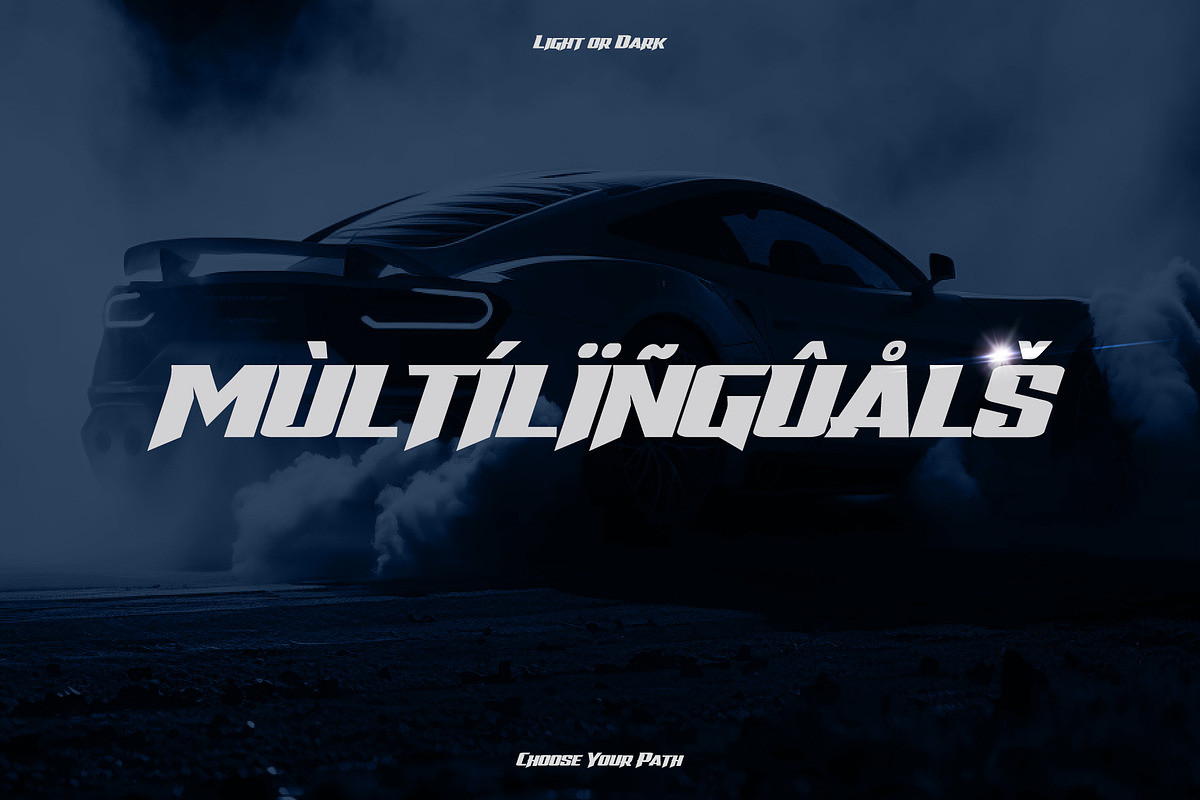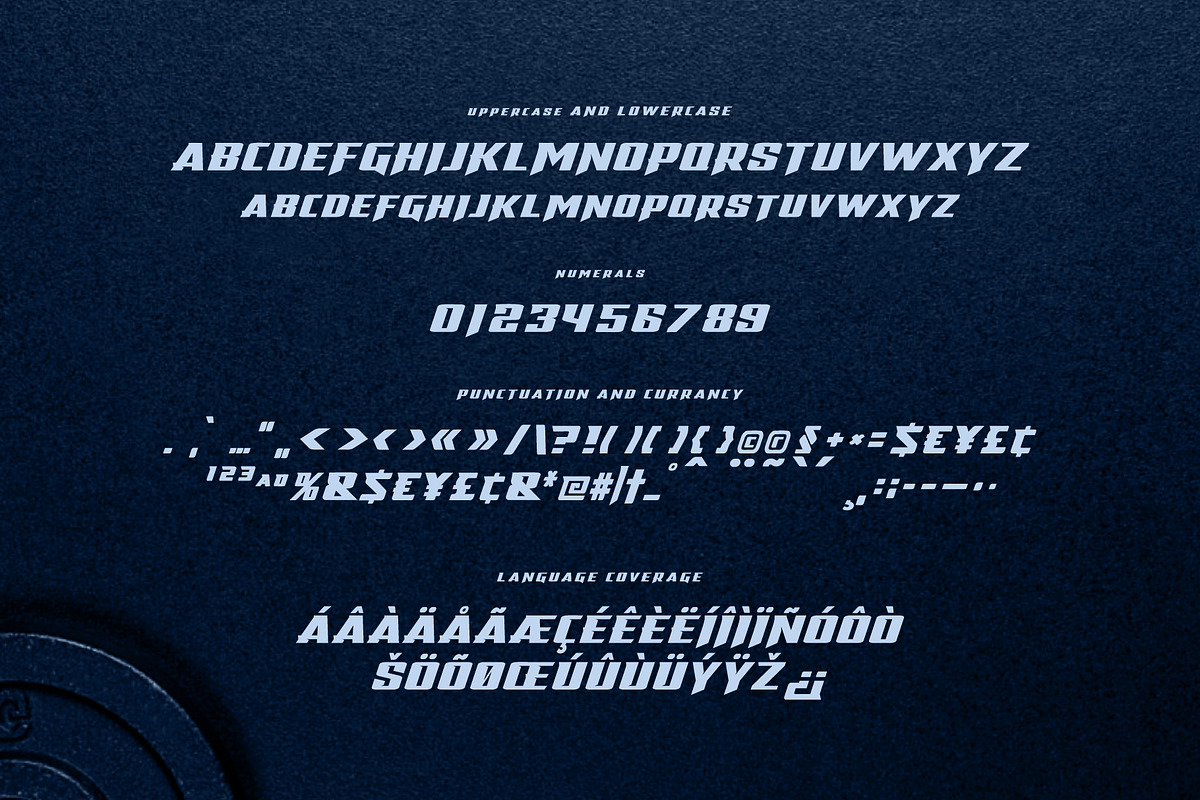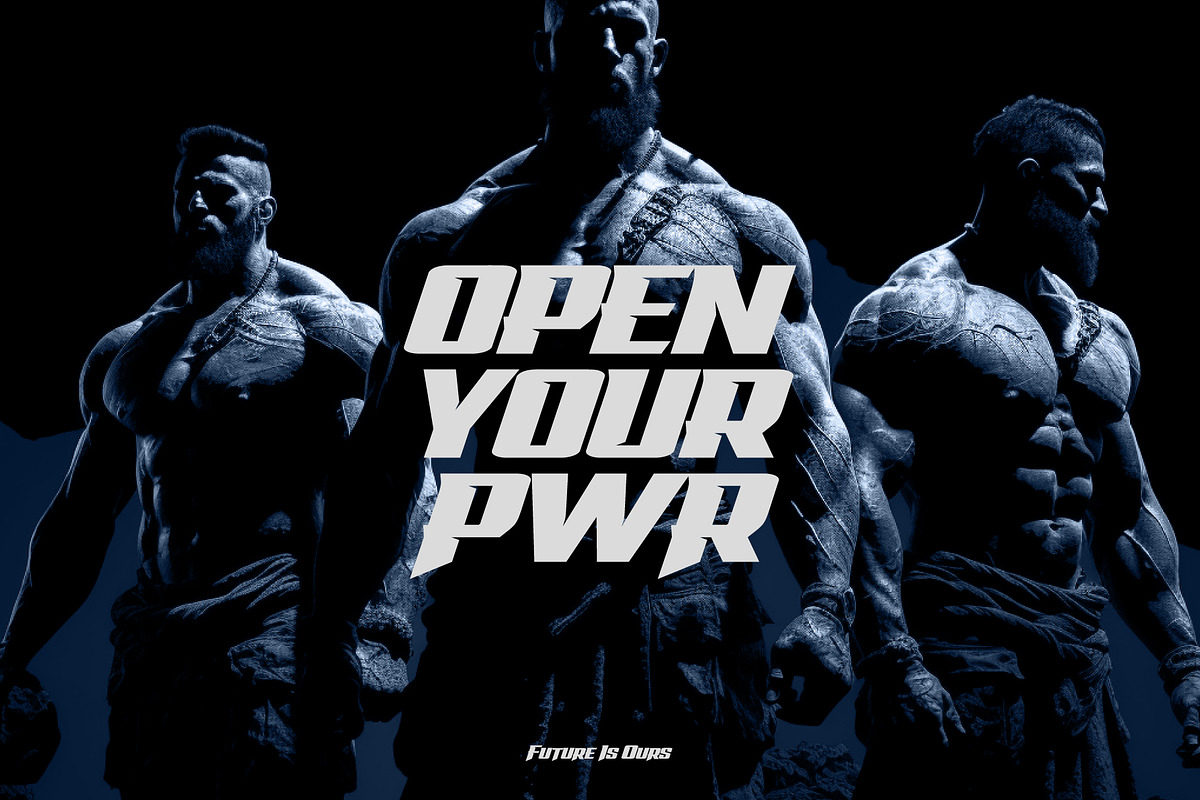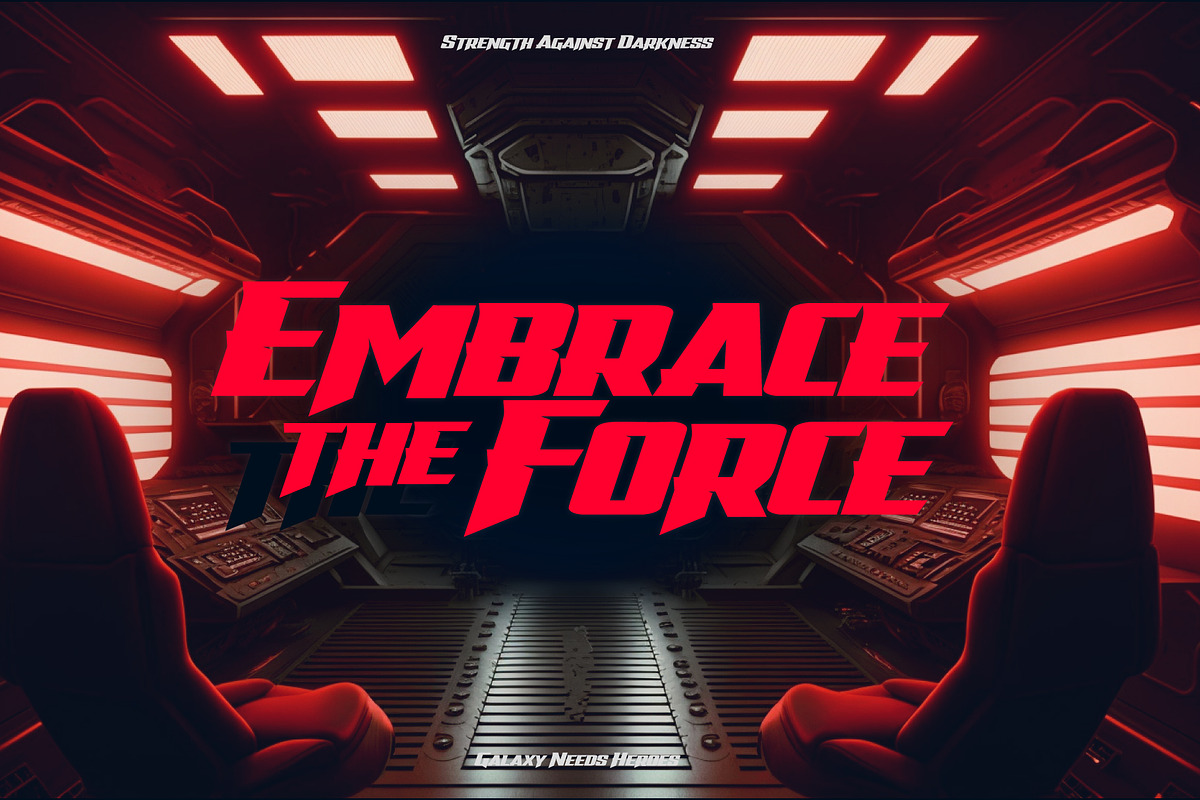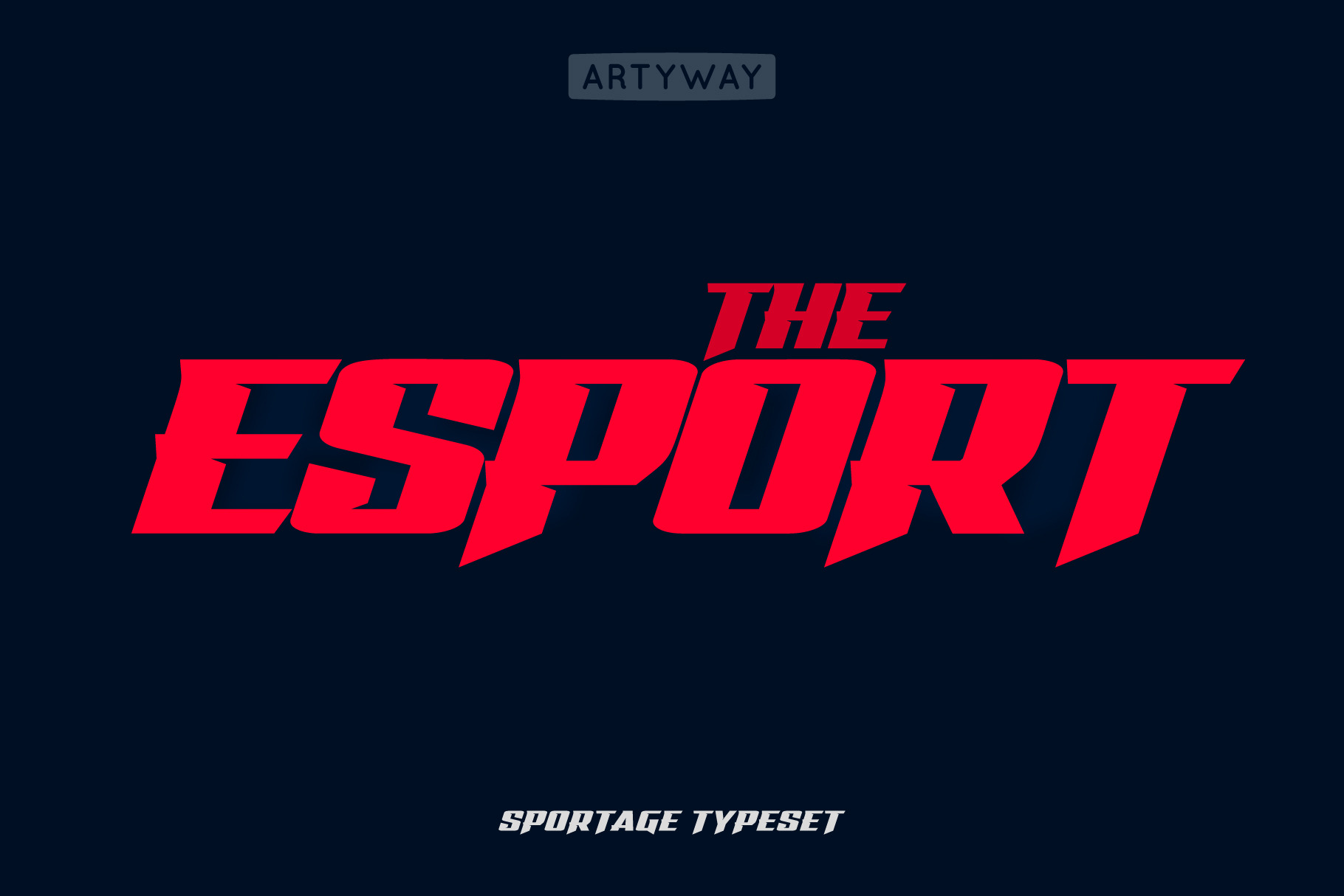
Esport Bold Font
Esport Font – Power, Speed, and Precision
Unleash adrenaline-fueled design with the Esport Font, a bold typeface tailored for high-impact projects. Featuring sharp angles, dynamic curves, and a slightly italicized stance, this font embodies strength, motion, and energy.
- Esports logos and gaming branding
- Dynamic headlines and sports posters
- Extreme sports and racing campaigns
- Gym branding and automotive designs
- High-stakes, competitive-themed projects
- Uppercase and lowercase letters
- Numbers and essential punctuation
- Multilingual support for global audiences
- Additional alternative symbols for a sharp and aggressive aesthetic
Convey power, speed, and performance with the Esport Font. Ideal for bold and impactful designs that demand attention and radiate energy.